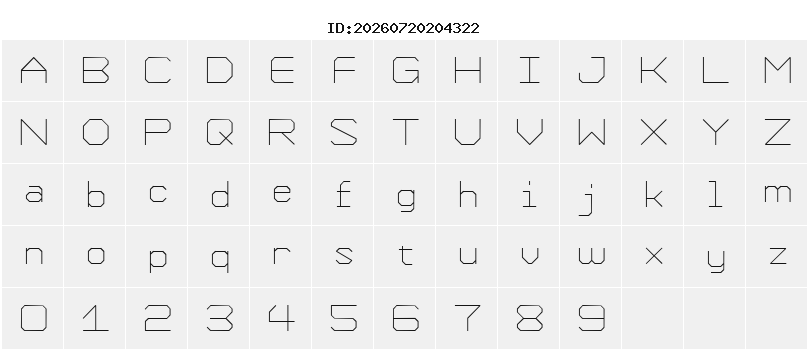
• Font Name: Formation
• Font Style: UltraLight
• Designer: Michael Cina
• Manufacturer: YouWorkForThem
About Formation.ttf
Formation.ttf is a modern, elegant sans-serif font designed for ultimate readability and visual harmony. Perfect for branding, headlines, web design, and print materials.